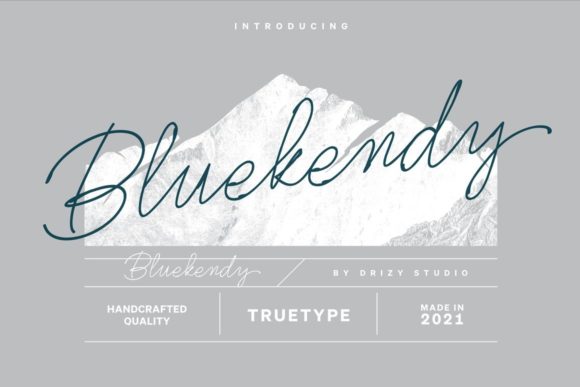
Feast your eyes on Bluekendy Font – a captivating creation by Drizy Studio, designed to take your designs to new heights. This elegant script font exudes a sense of grace and sophistication, with its thin lettering and ravishing style. Bluekendy is more than just a font – it's an artistic expression that will transform your designs into masterpieces.
Indulge in the boundless creativity that Bluekendy offers. Its alluring curves and delicate strokes will add a touch of magic to your projects. Whether you're crafting enchanting logos, heartfelt invitations, or captivating social media posts, Bluekendy will elevate your designs with its undeniable charm.
Immerse yourself in the limitless possibilities of Bluekendy. Its versatile nature makes it the perfect choice for a wide range of design projects. From wedding invitations that exude elegance to branding materials that demand attention, Bluekendy seamlessly adapts to your creative vision.
Step into the realm of visual enchantment with Bluekendy. Its PUA encoding grants you effortless access to a world of glyphs and swashes, empowering you to unleash your creativity like never before. Experiment with diverse character combinations and elegant flourishes to create designs that captivate and inspire.
Bluekendy is more than just a font; it's an open door to a world of artistic expression. Its enchanting style will cast a spell on your audience, leaving them captivated by your designs. Embrace the transformative power of Bluekendy and watch as your creative dreams come to life.